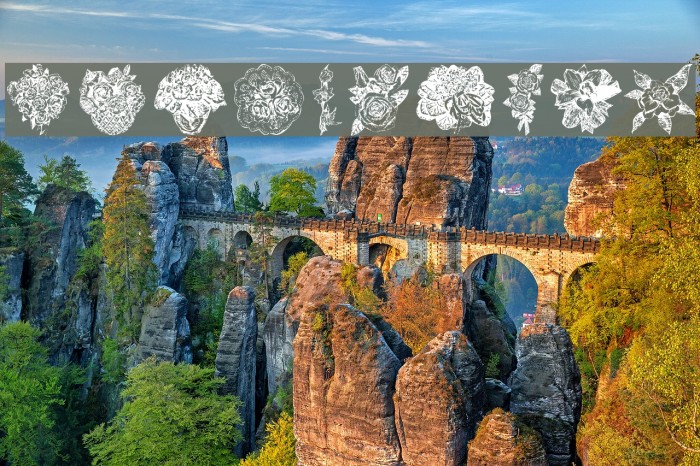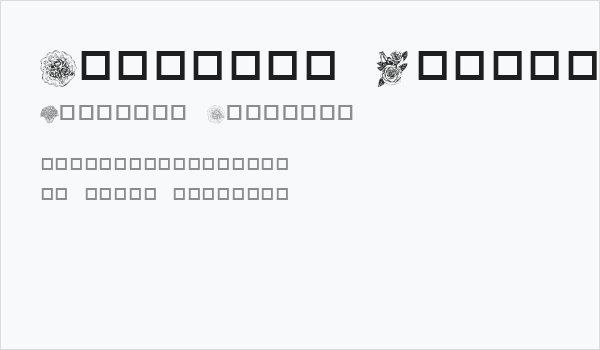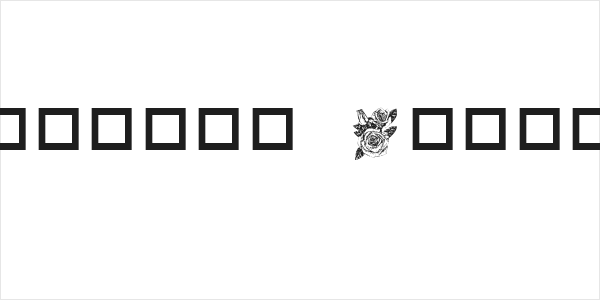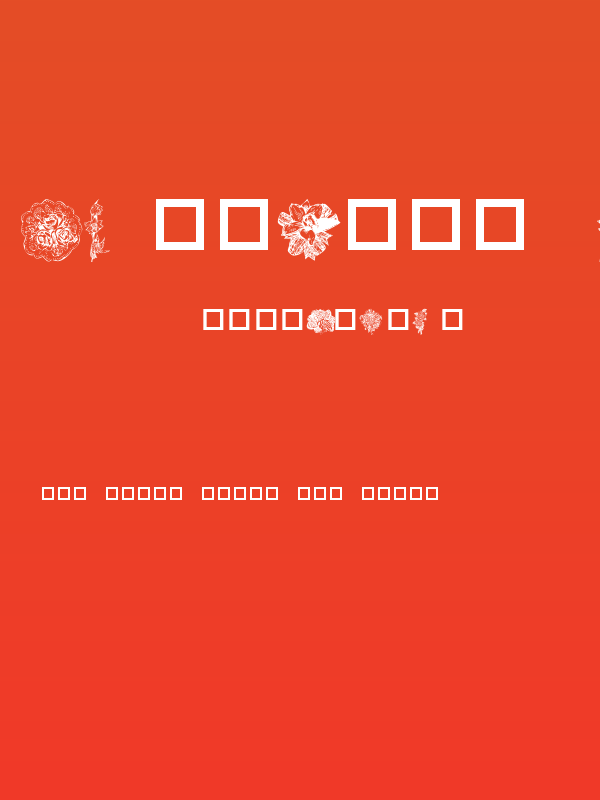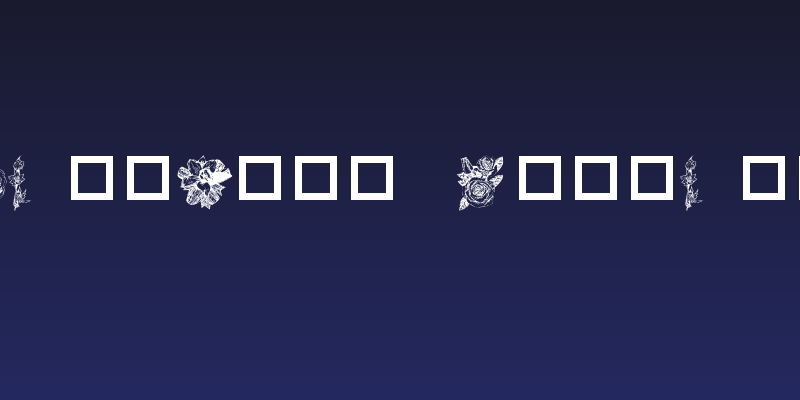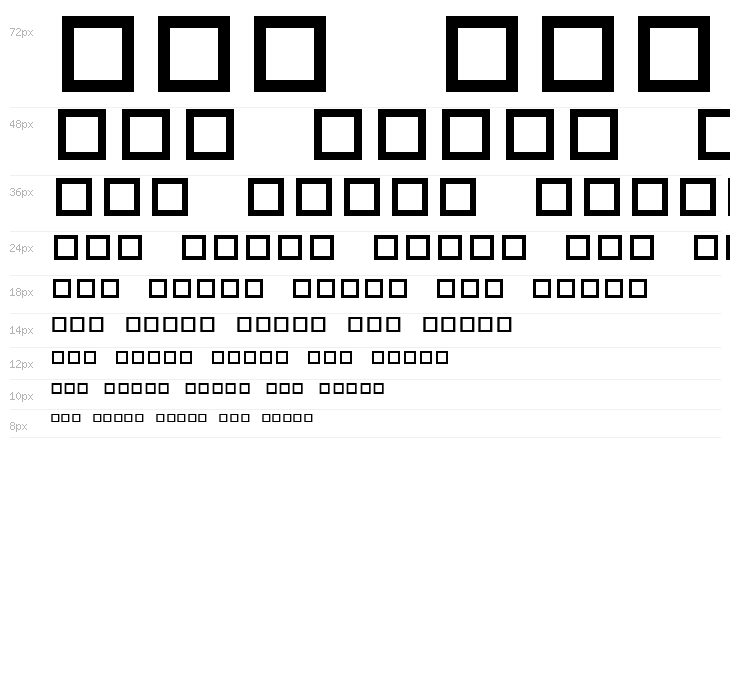
Destinys Flowers Font
A decorative dingbat font featuring detailed, hand-drawn floral illustrations for each glyph, with intricate linework and organic shapes. The flowers vary in style and complexity, providing a range of botanical motifs.
Overall StyleDecorative, Botanical, Hand-drawn
Use CaseDecorative elements, Icons, Borders, Accents
Proposed ProjectsWedding invitations, greeting cards, decorative borders, botanical-themed designs, scrapbooking, and branding for florists.